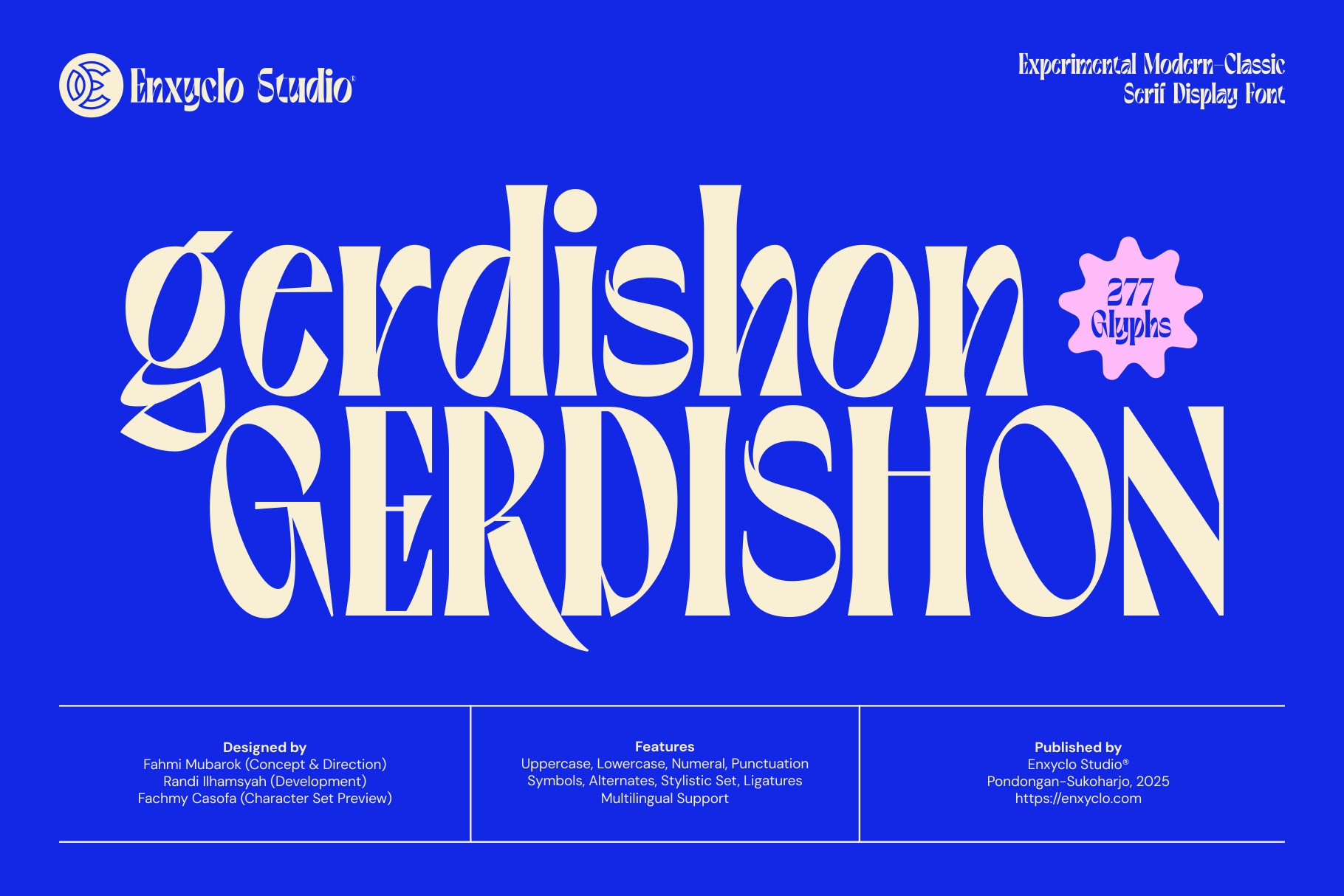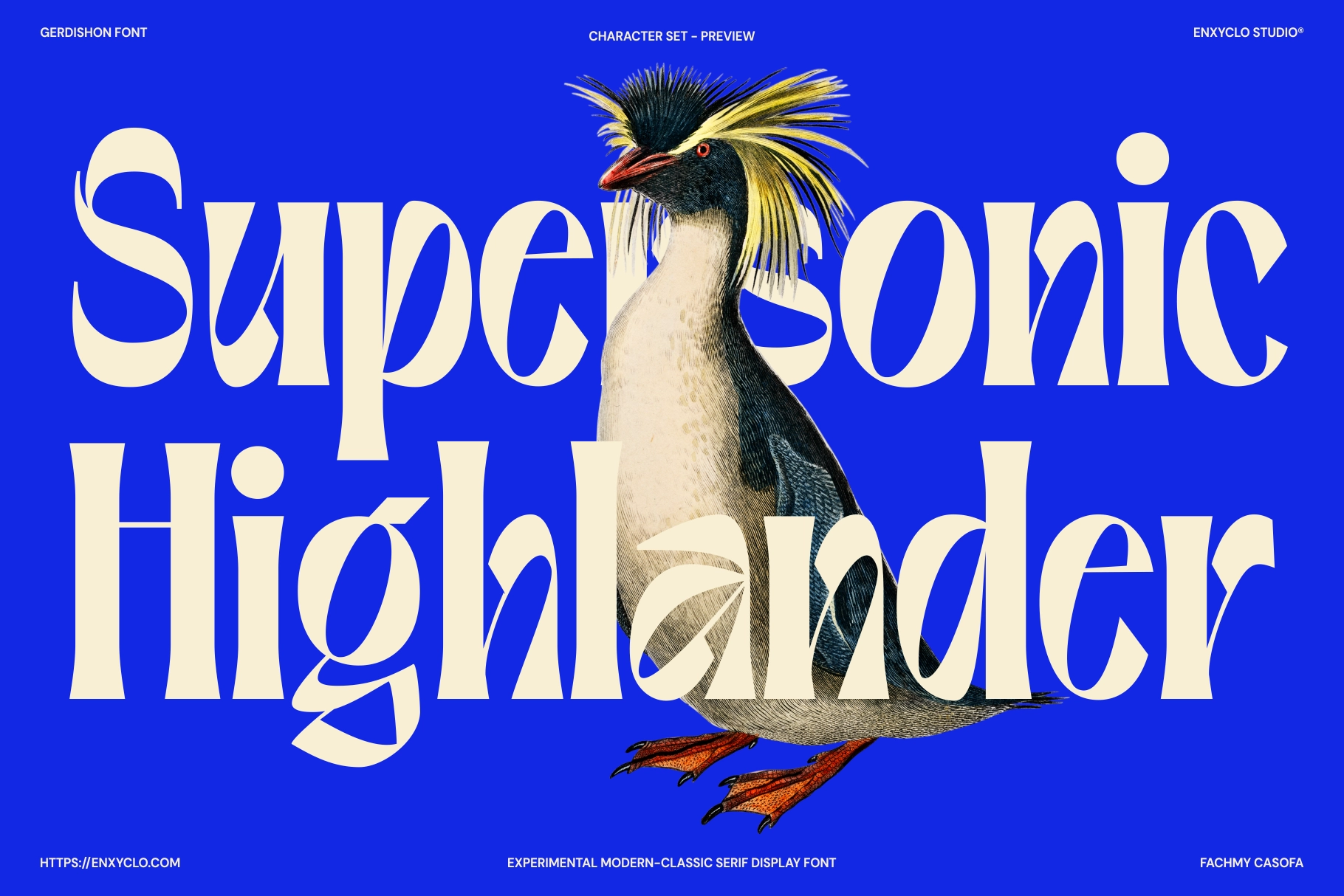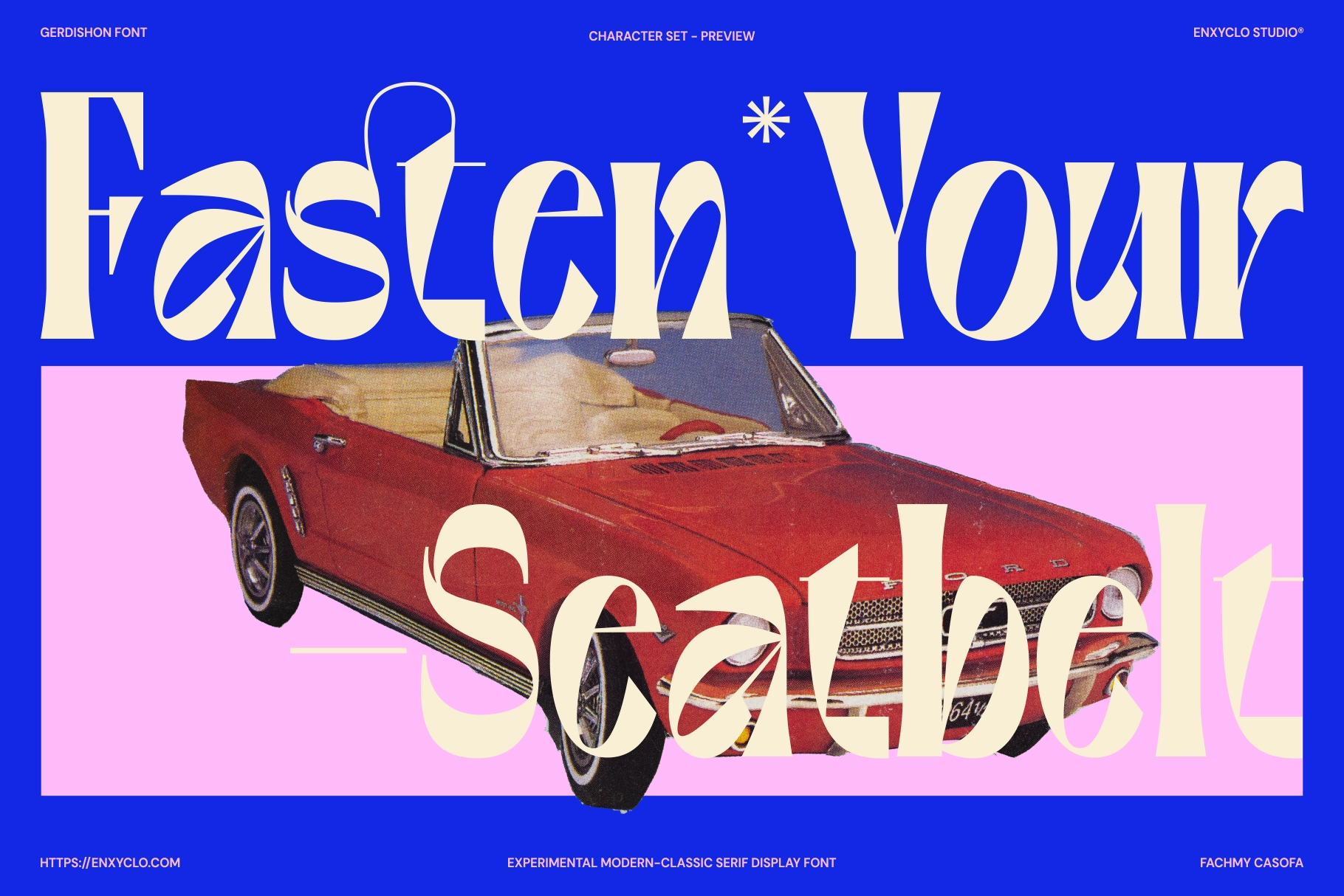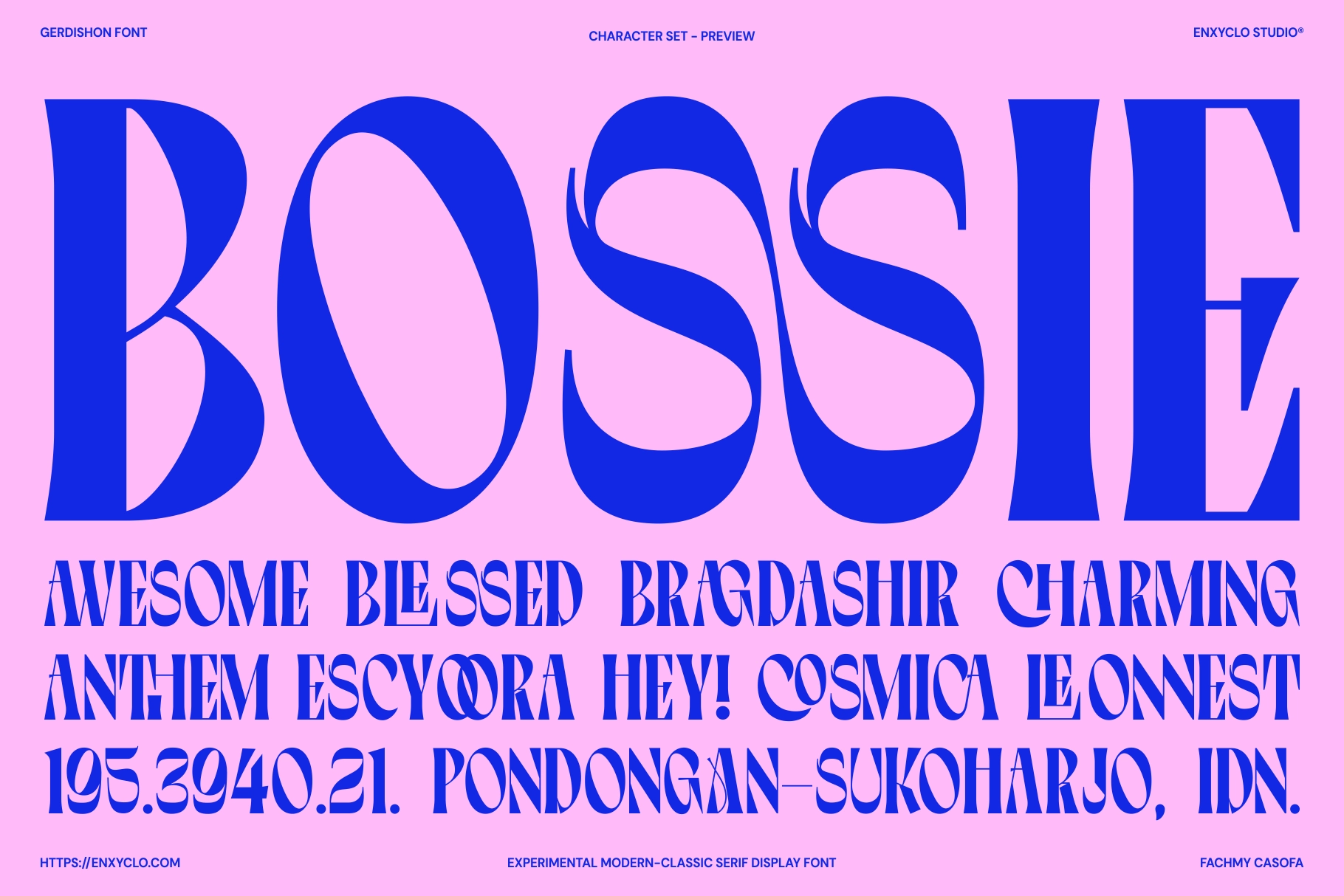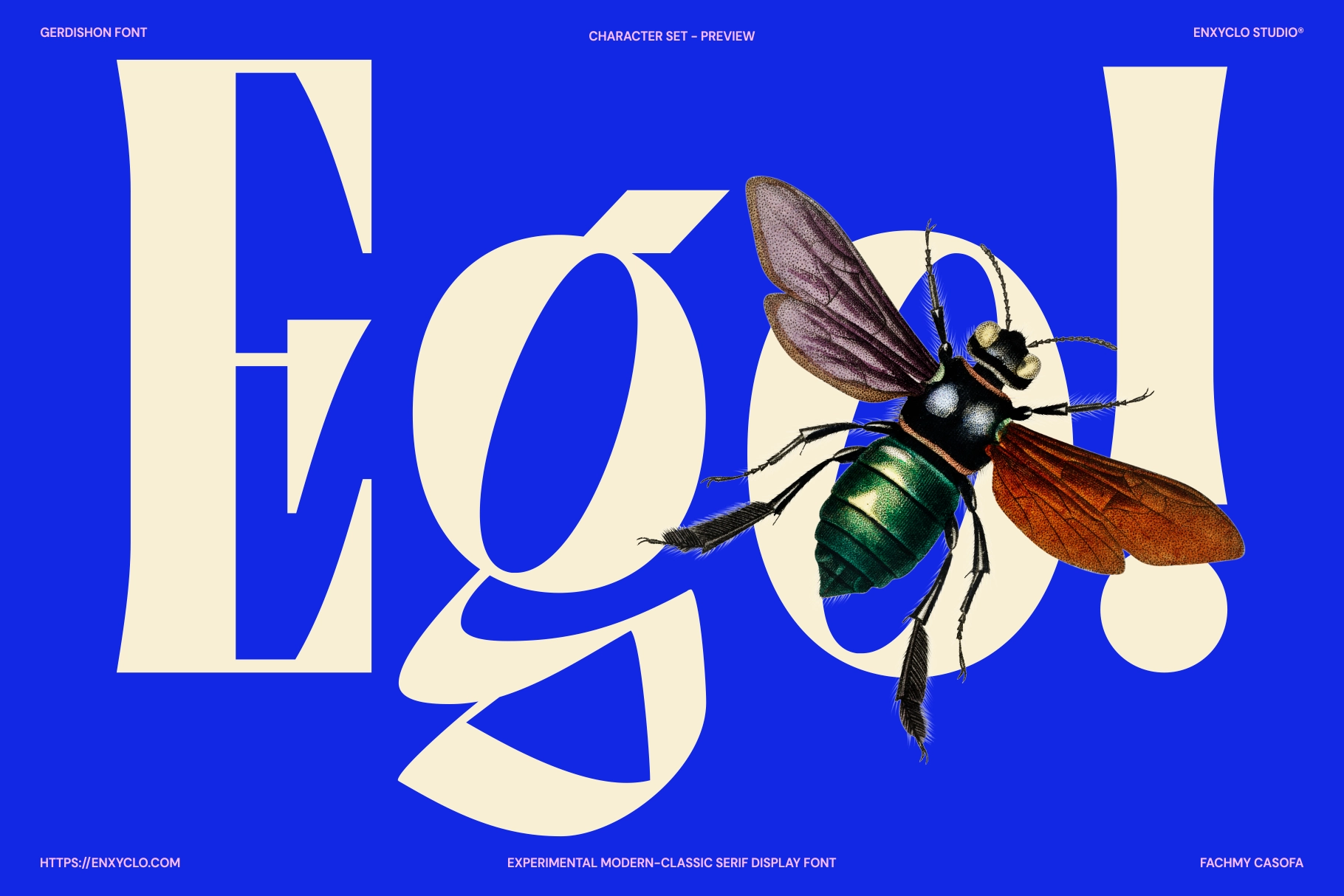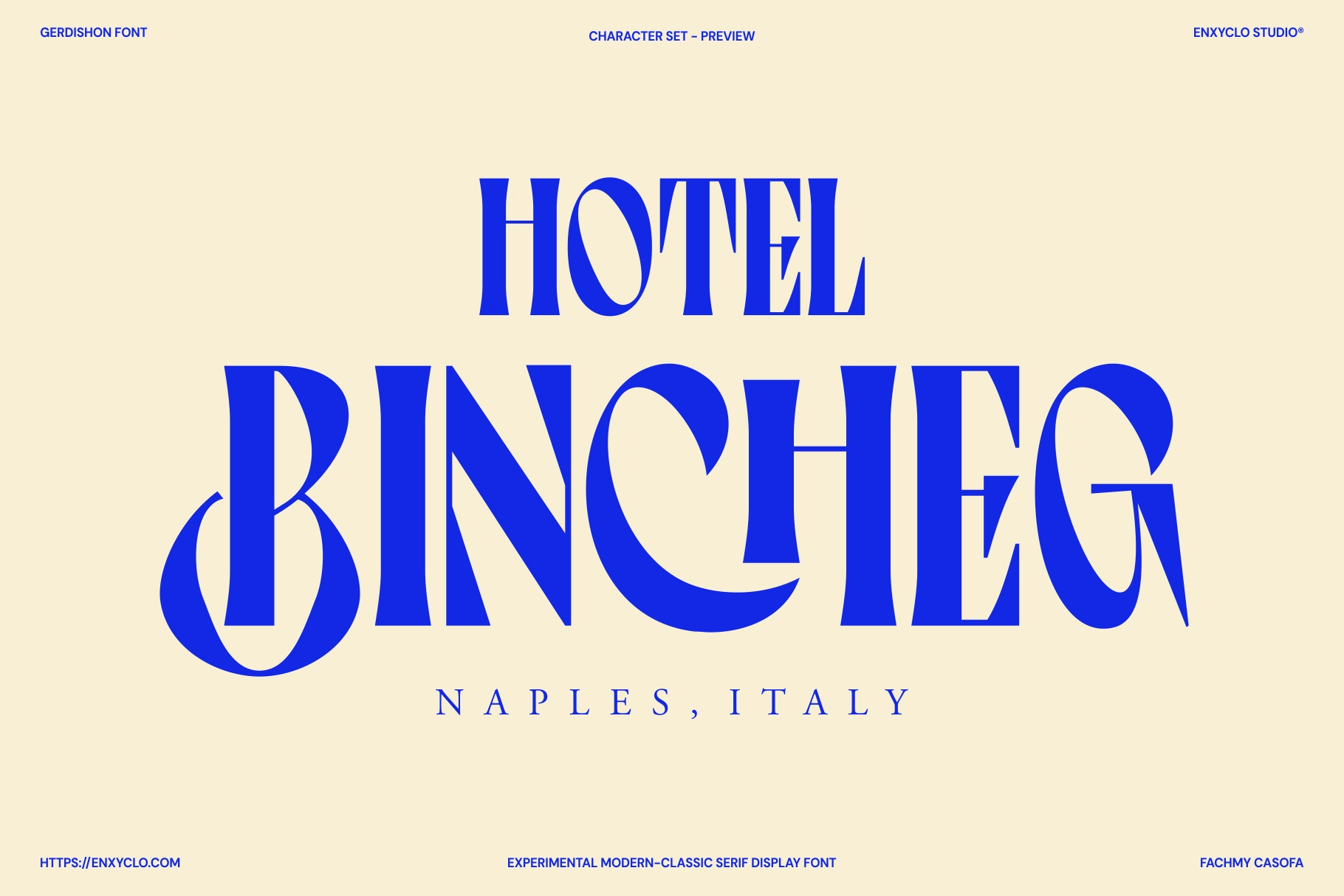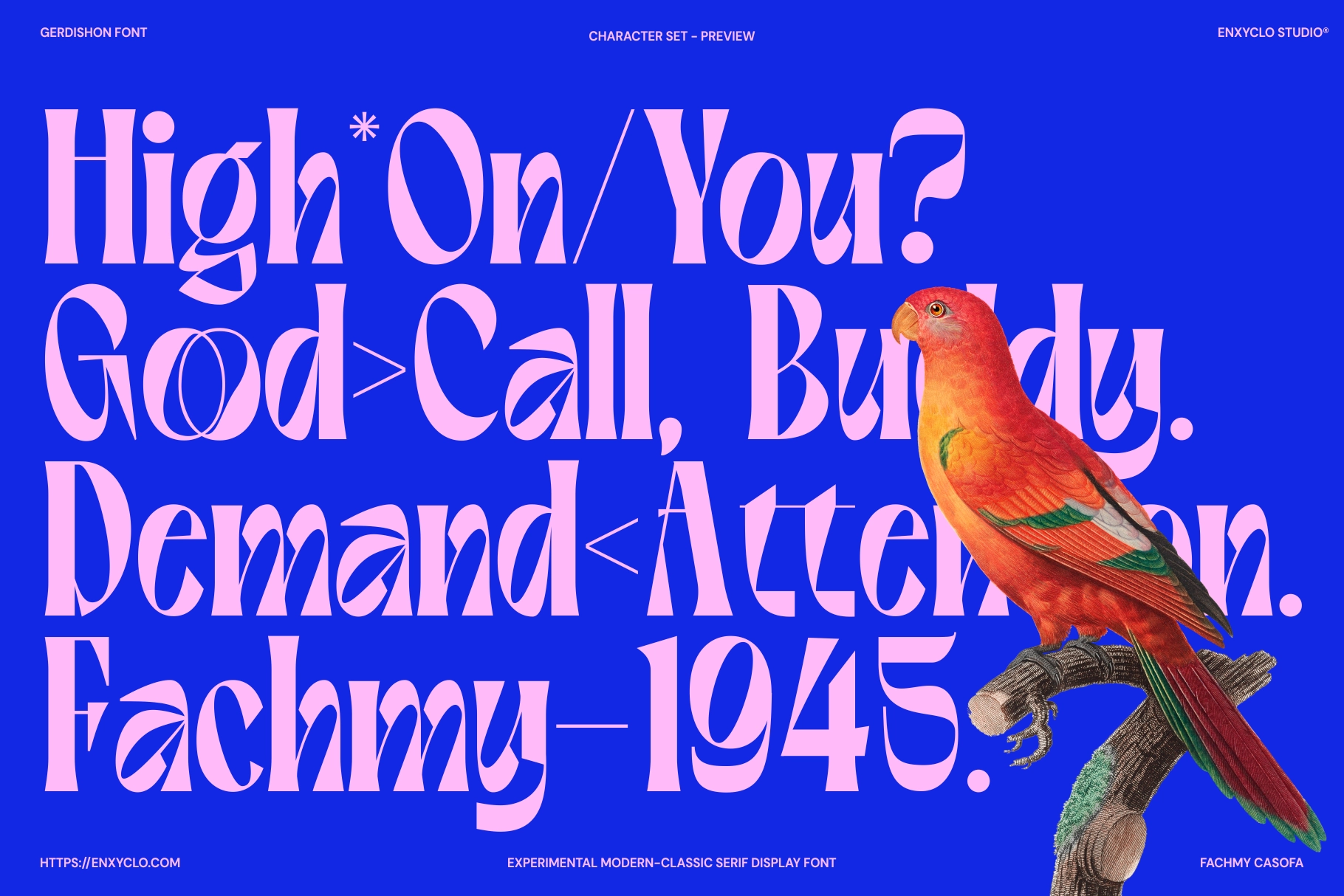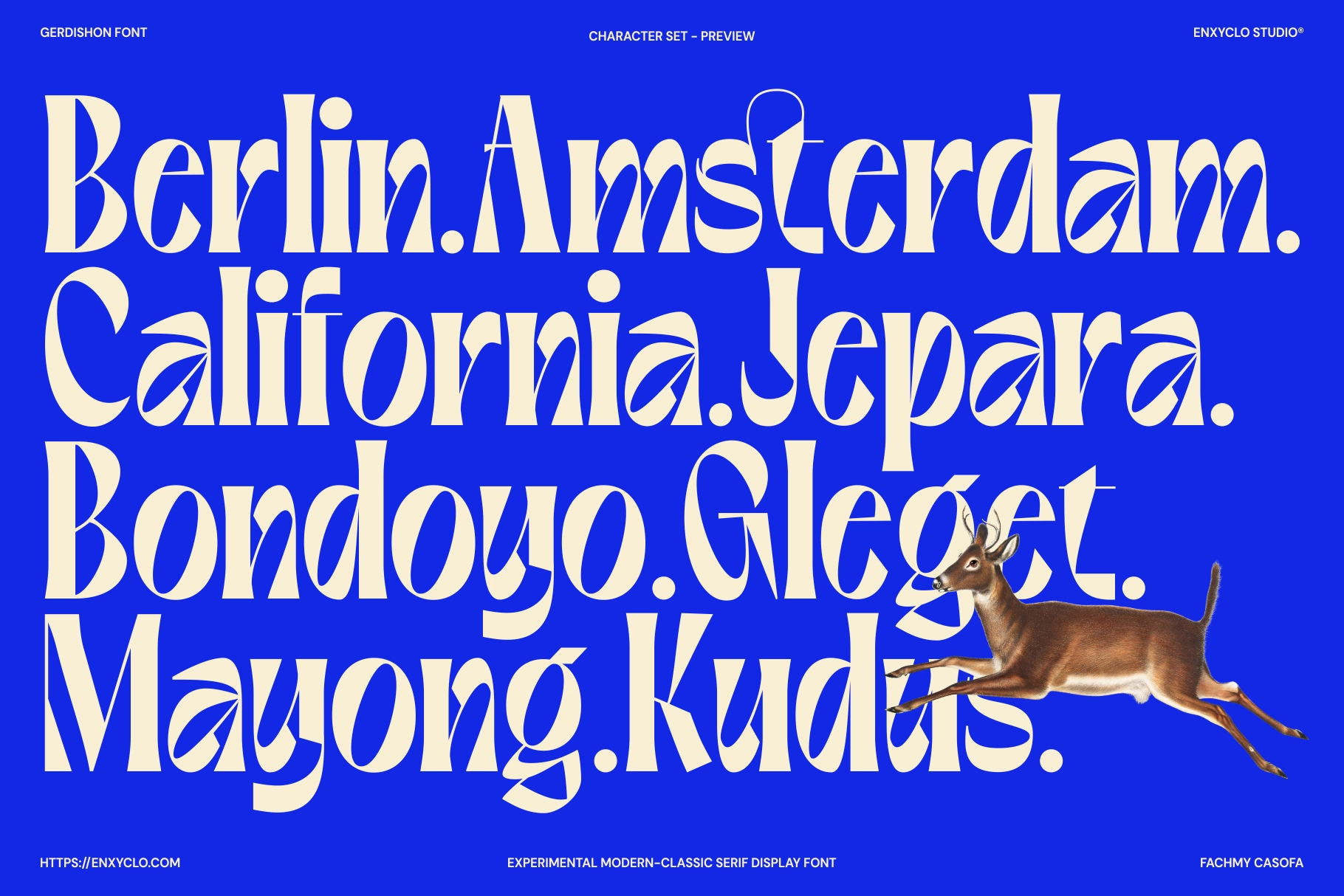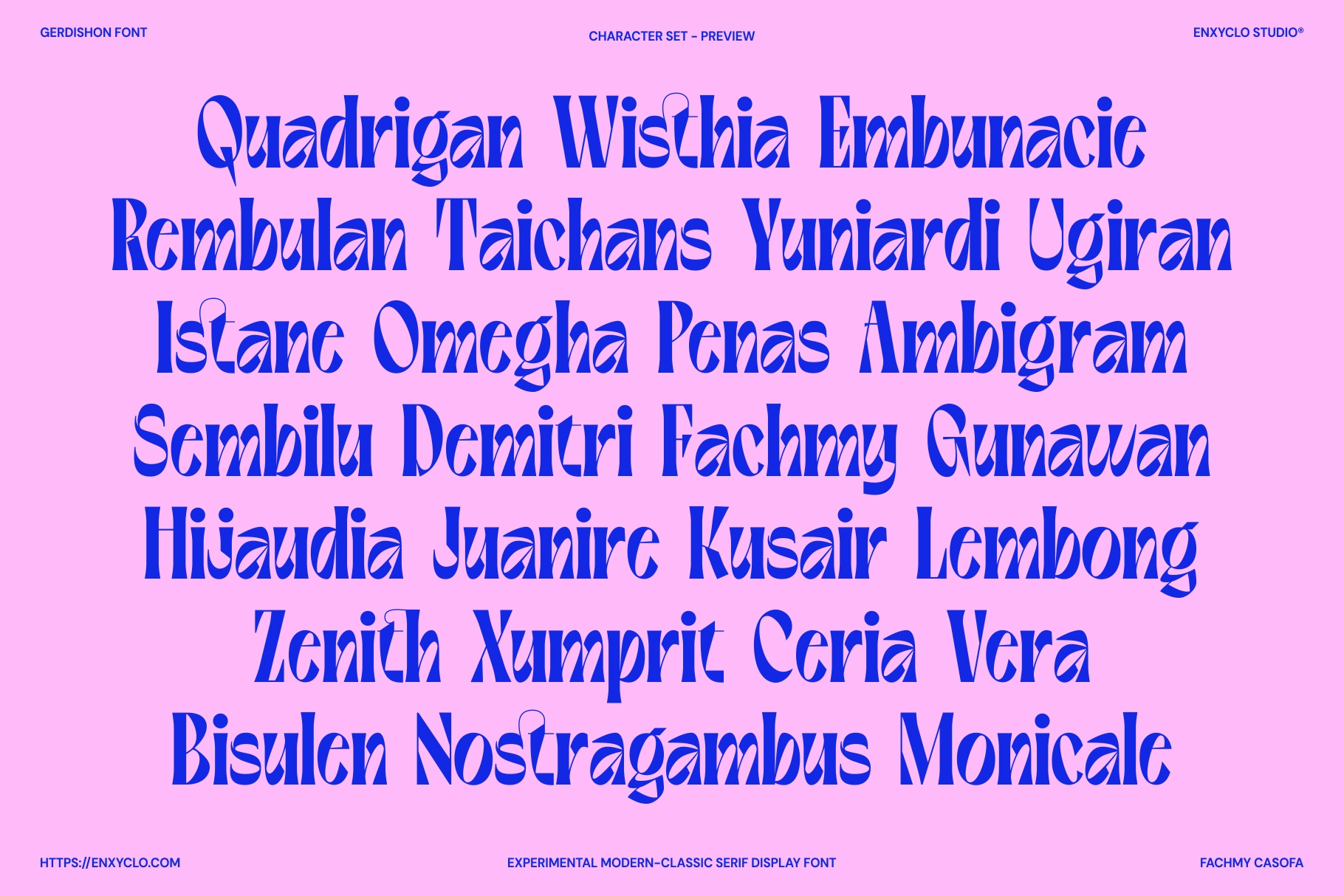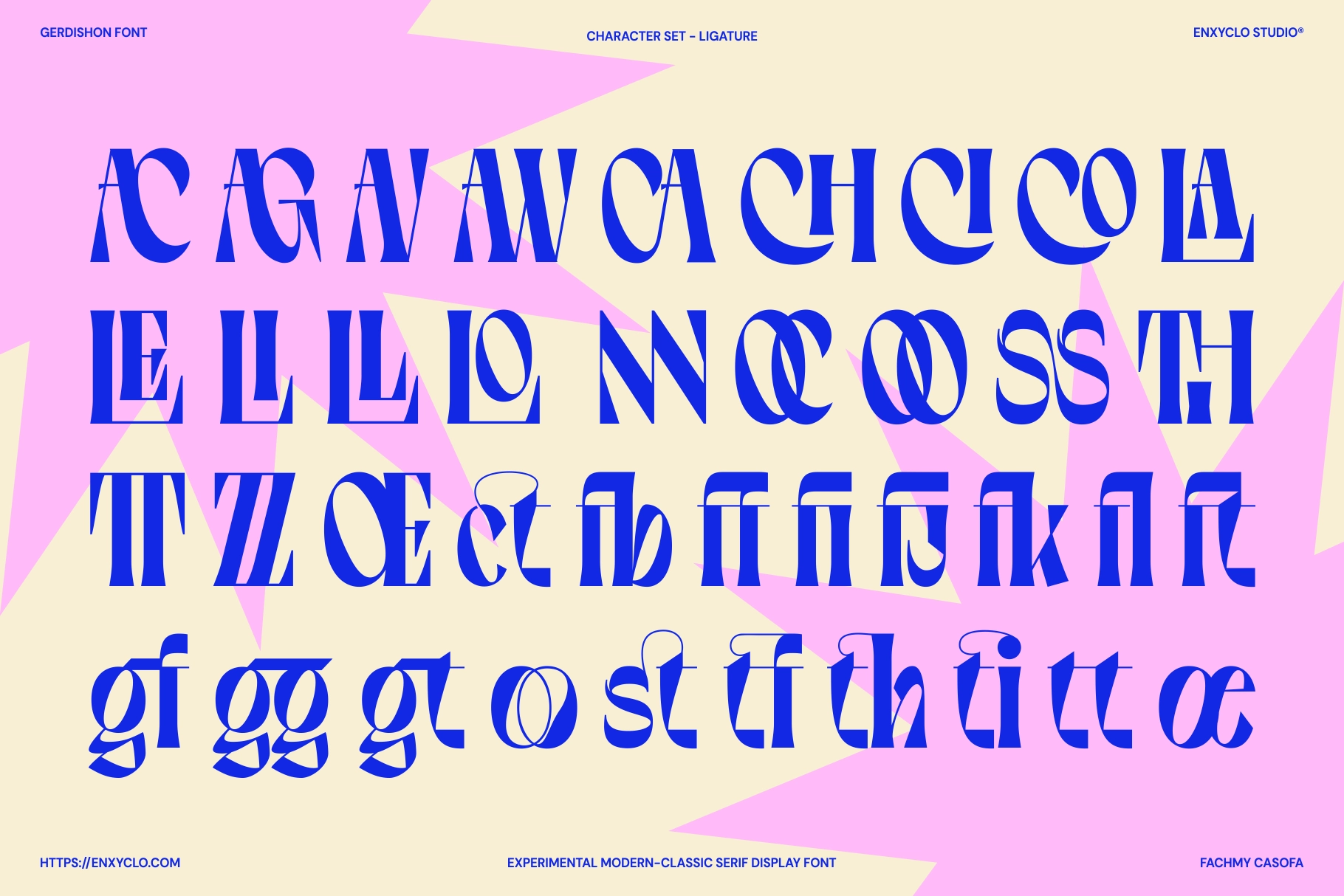
Gerdishon - Experimental Modern Serif Display Font
Gerdishon – Experimental Modern Serif Display Font is a bold and artistic serif typeface that blends classic elegance with experimental modern design. Defined by sharp edges, dramatic curves, and distinctive letterforms, Gerdishon delivers a striking visual presence that instantly commands attention. Its unique structure pushes traditional serif boundaries while maintaining a refined and stylish character.
Designed for expressive and high-impact typography, Gerdishon works perfectly in editorial headlines, logos, posters, album covers, and fashion-forward branding. The combination of alternates, ligatures, and stylistic variations allows designers to build unique typographic compositions that feel sophisticated, creative, and visually powerful.
• 277 Glyphs
• Alternates, Ligatures & Stylistic Sets
• Uppercase & Lowercase Characters
• Numerals, Punctuation & Symbols
• Experimental Modern Serif Display Style